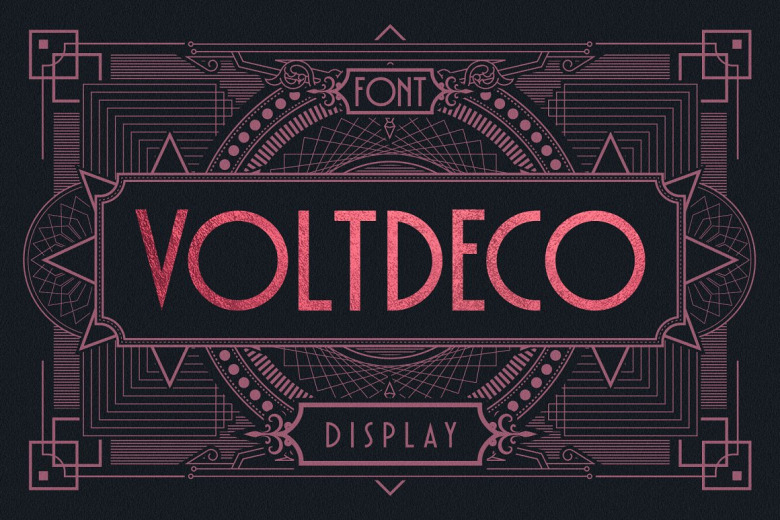
Voltdeco Font
Voltdeco Font is a modern sans serif display artdeco typeface. It can easily be matched to an incredibly large set of projects, so add it to your creative ideas and notice how it makes them stand out! This font is perfect for stickers, craft projects, shirts, svg designs, procreate designs, branding, blogs, logos, invitations and more!
Voltdeco Display Font